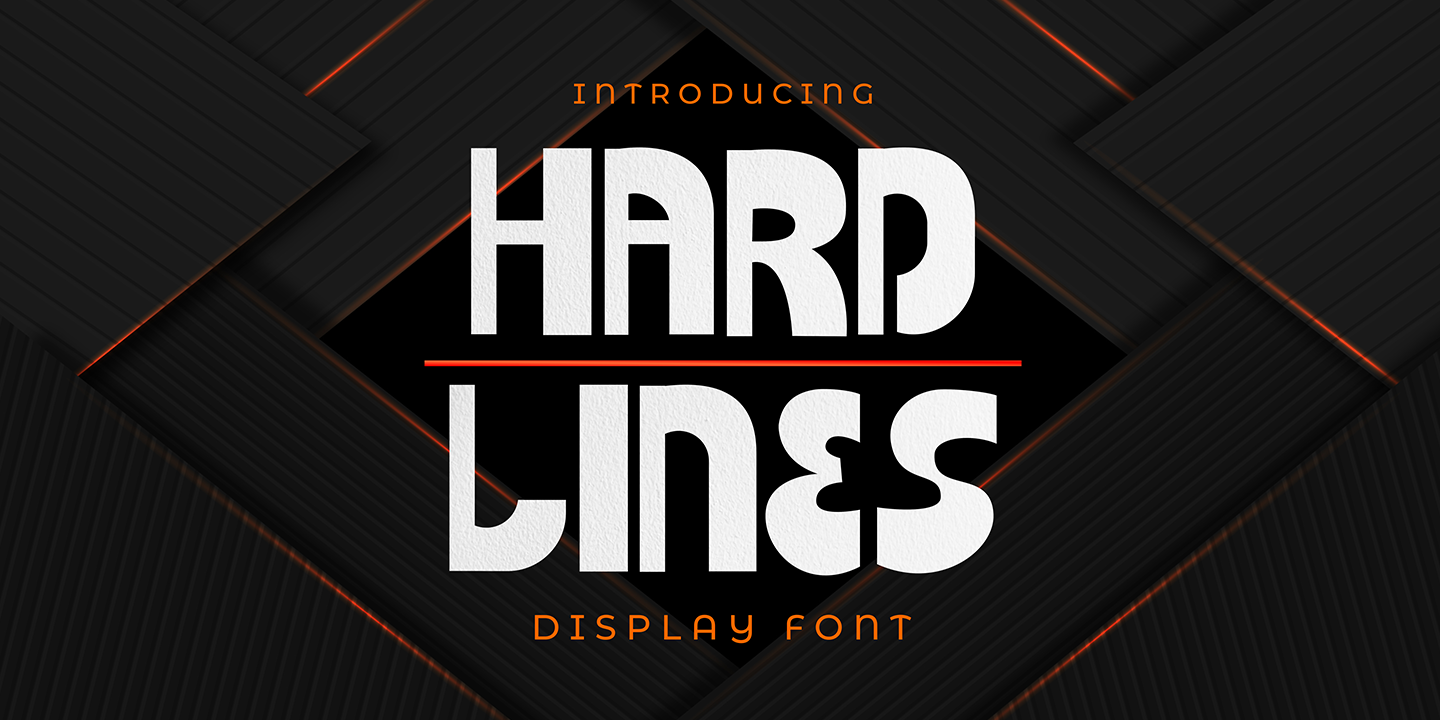
Hard Lines Display Font Free Download
Hard Lines Display Font excels in bold design applications including industrial brand identity, construction company logos, architectural firm presentations, engineering publications, manufacturing signage, heavy machinery branding, steel industry materials, and powerful advertising campaigns that require typography with structural strength and unwavering precision.
What makes Hard Lines Display Font exciting is its exceptional ability to communicate industrial strength and structural integrity through precisely engineered letterforms that embody the uncompromising nature of modern construction and engineering. This commanding typeface features sharp, angular characteristics with geometric precision that instantly conveys durability, reliability, and professional excellence. The font's industrial personality and structural appeal make it perfect for brands seeking to establish technical credibility and communicate values of strength, precision, and engineering excellence to professional audiences.
Hard Lines Display Font family encompasses multiple weights and structural variations designed for comprehensive industrial communication. The family typically includes light, regular, bold, and black weights, complemented by condensed versions, technical alternates, and extended character sets with engineering symbols that enhance its industrial aesthetic and provide maximum structural impact.
Industrial designers consistently choose Hard Lines Display Font Free Download for projects requiring typography that embodies structural reliability and engineering precision. This powerful display typeface delivers exceptional visual impact across technical applications, from digital engineering platforms to large-scale industrial signage, ensuring consistent brand messaging with unmistakable industrial authority and technical credibility. The font's precisely crafted letterforms maintain excellent readability while delivering the structural presence that engineering brands demand. Technical industry agencies worldwide rely on this robust typeface to communicate brand values of reliability, precision, and industrial excellence. Build your brand's foundation with Hard Lines Display Font and create compelling visual communications that resonate with audiences who appreciate structural integrity, engineering precision, and the uncompromising strength of industrial design.